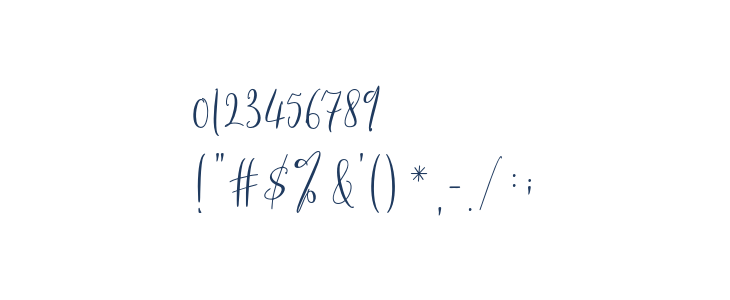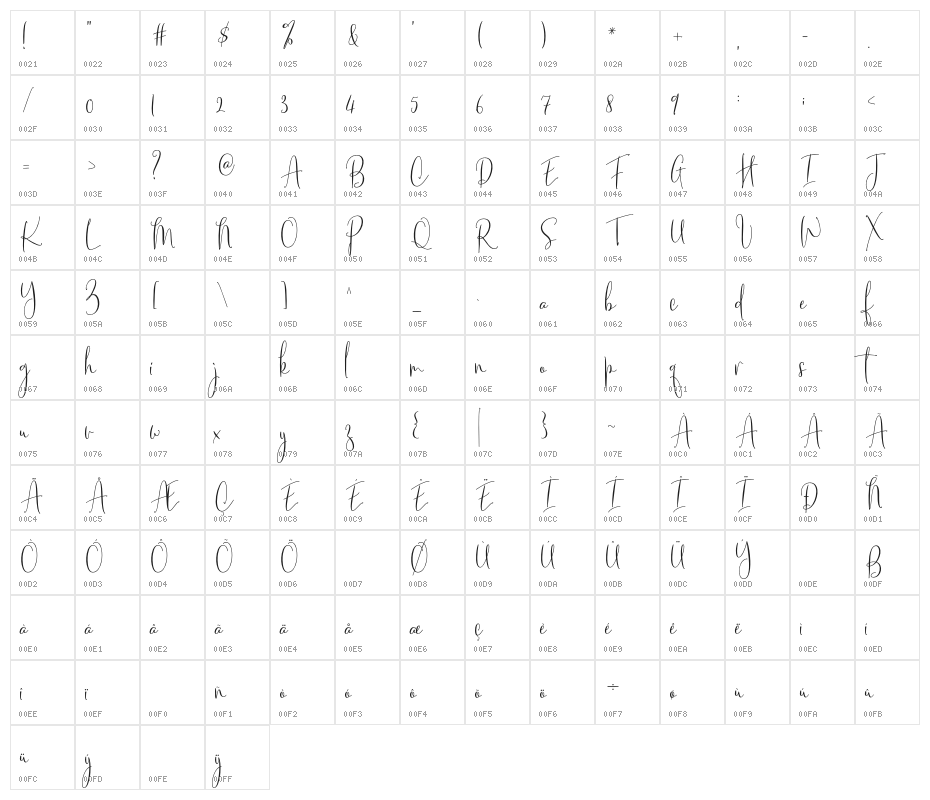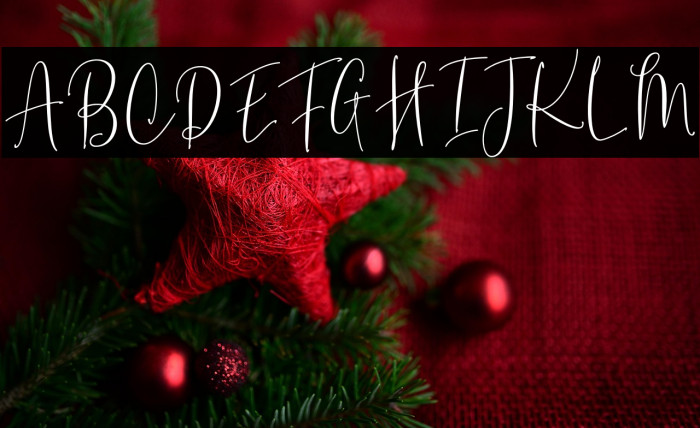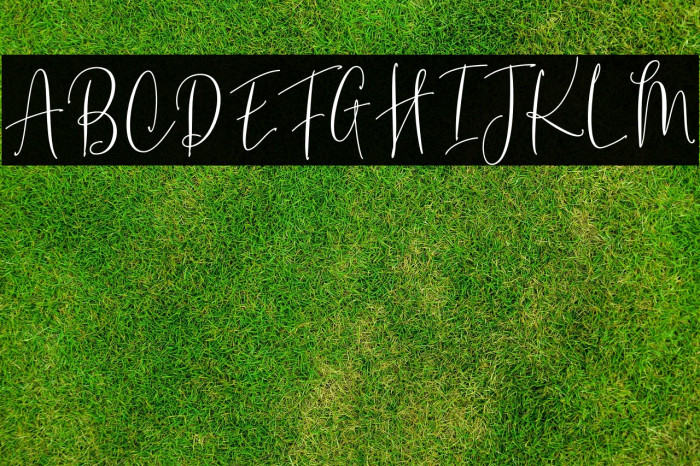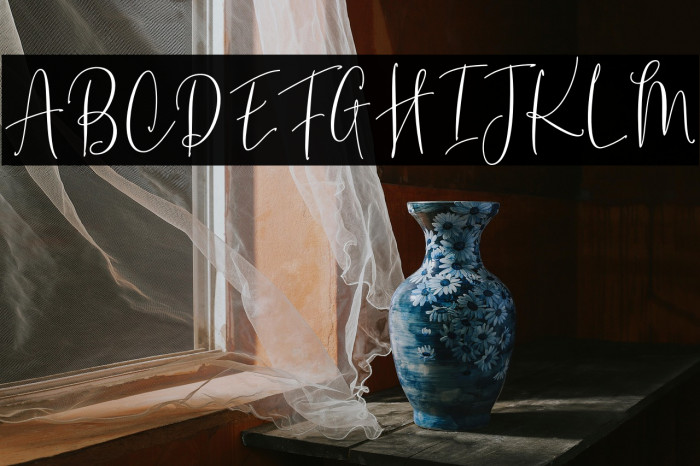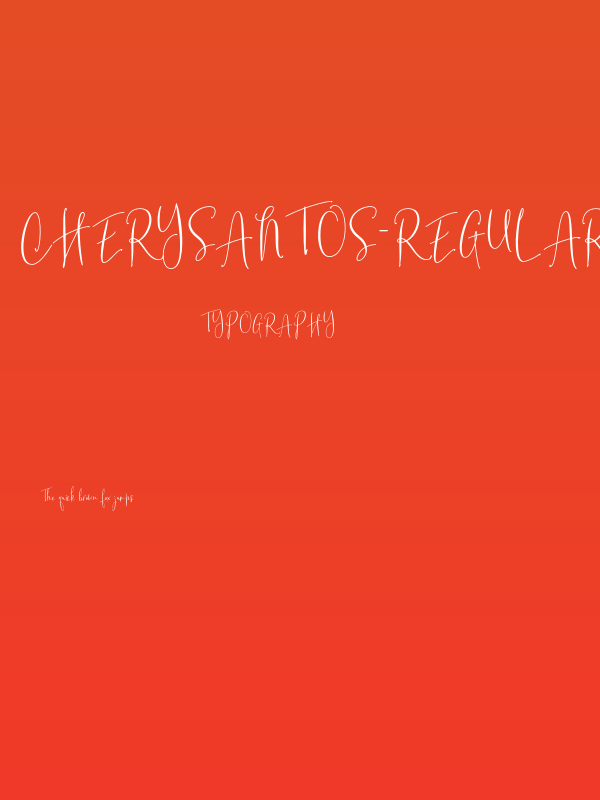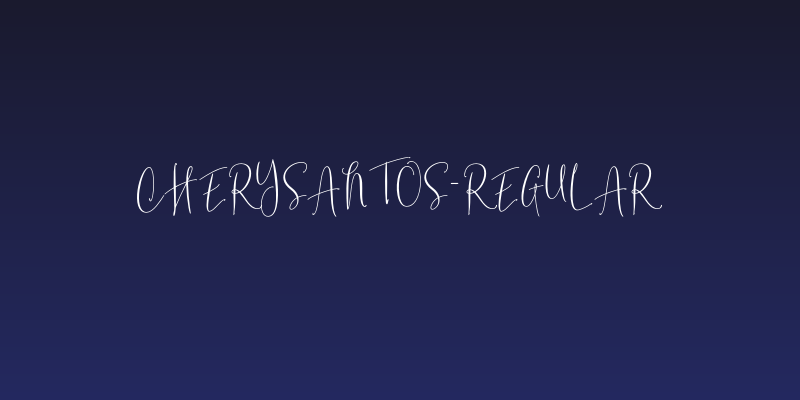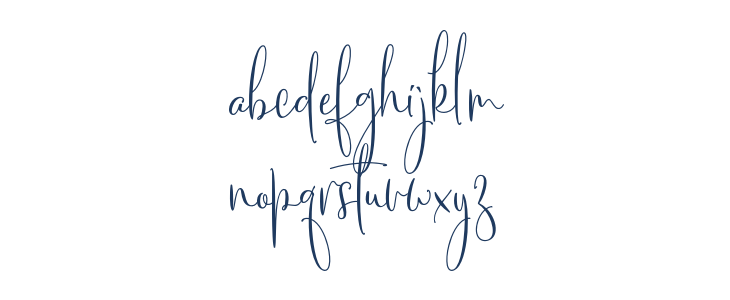
CherySantos-Regular Font
CherySantos-Regular Description
This font features a whimsical and flowing script style, characterized by its elegant, hand-drawn appearance. The letters are connected with smooth, sweeping curves, giving it a fluid and dynamic look. The uppercase letters are tall and slender, with unique flourishes that add a touch of sophistication. The lowercase letters maintain a consistent style, with some characters featuring loops and swashes that enhance the overall aesthetic. The numerals are designed to match the playful yet refined style of the alphabet. Special characters are included, maintaining the same artistic flair. This font is perfect for projects that require a personal and artistic touch.